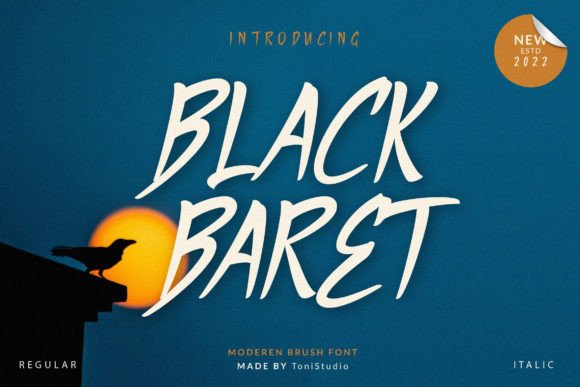
Immerse yourself in the captivating realm of Black Baret, a breathtaking script font that ignites your imagination and empowers your creative endeavors. Its alluring brushstrokes, imbued with raw emotion and effortless elegance, will transform your designs into masterpieces that resonate with the world.
Black Baret is not just a font; it's a conduit for expressing your unique voice. Its versatility extends beyond the boundaries of music covers, embracing a kaleidoscope of creative projects. From enchanting wedding invitations that evoke heartfelt emotions to captivating social media posts that demand attention, Black Baret possesses the charisma to elevate your creations to new heights.
Allow the graceful curves and energetic strokes of Black Baret to infuse your designs with a touch of magic. Its organic flow mimics the fluidity of thought, capturing the essence of spontaneity and authenticity. Experience the joy of crafting designs that speak volumes, leaving an indelible mark on the hearts of your audience.
Each letterform in Black Baret is a stroke of brilliance, meticulously crafted to evoke a sense of allure and sophistication. The bold, enchanting strokes exude confidence, while the subtle nuances add depth and character to every word you write. Imagine the impact of your brand logo adorned with Black Baret, commanding attention and etching itself into the minds of your customers.
Unleash the boundless potential of Black Baret and watch as your designs blossom into captivating expressions of your artistry. Its versatility knows no bounds, empowering you to create a cohesive brand identity that reflects your unique vision. From business cards that exude professionalism to marketing materials that ignite excitement, Black Baret is your ultimate creative ally.
Indulge in the exquisite beauty of Black Baret, a font that transforms your creations into captivating works of art. Its effortless elegance and emotional depth will breathe life into your designs, allowing you to connect with your audience on a profound level. Dive into the world of Black Baret and discover the power of a font that empowers you to express yourself with unwavering confidence and creativity.